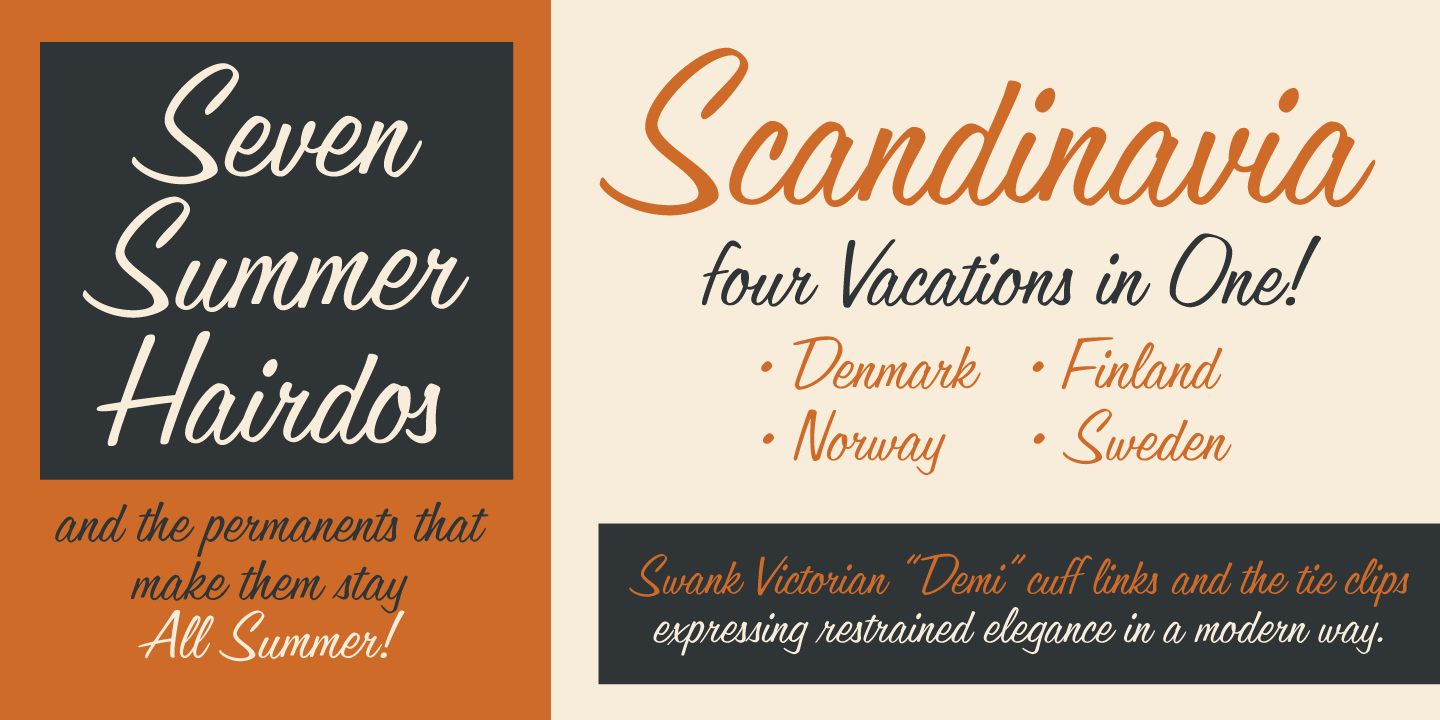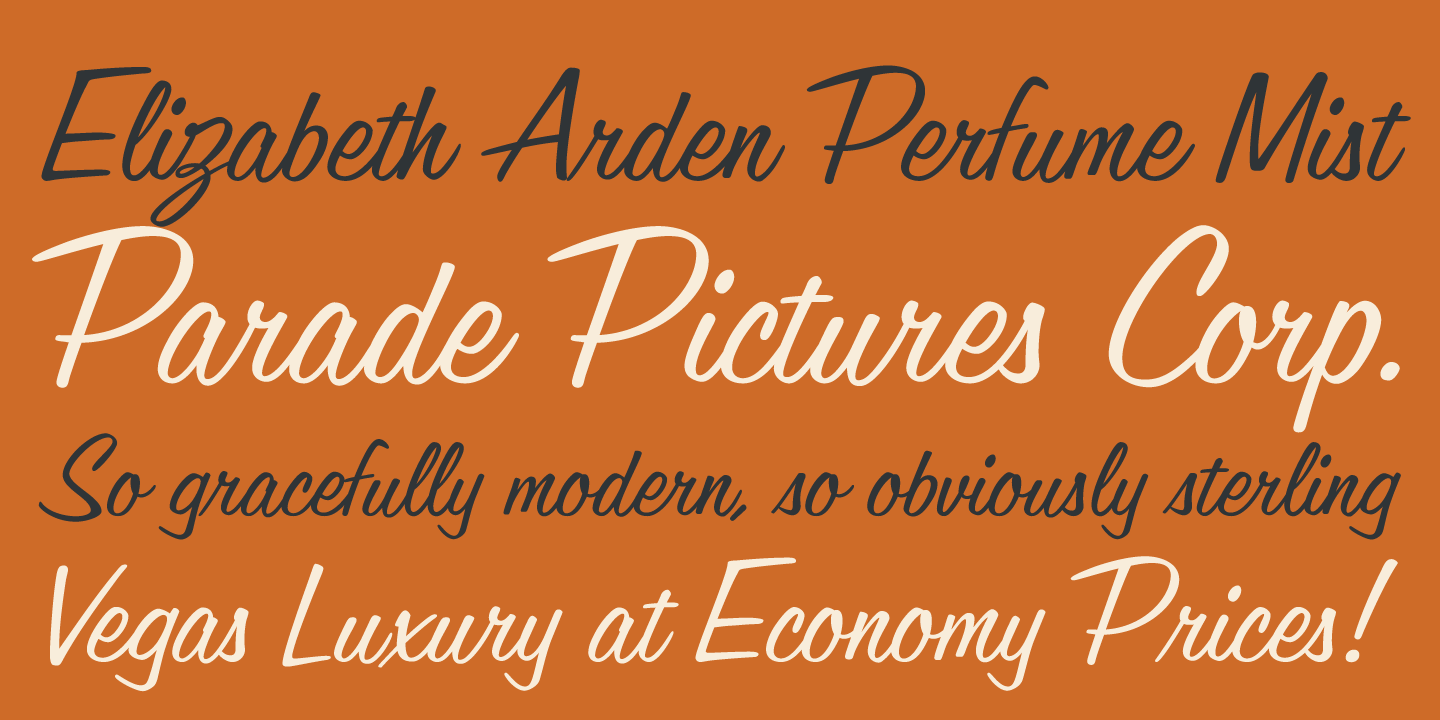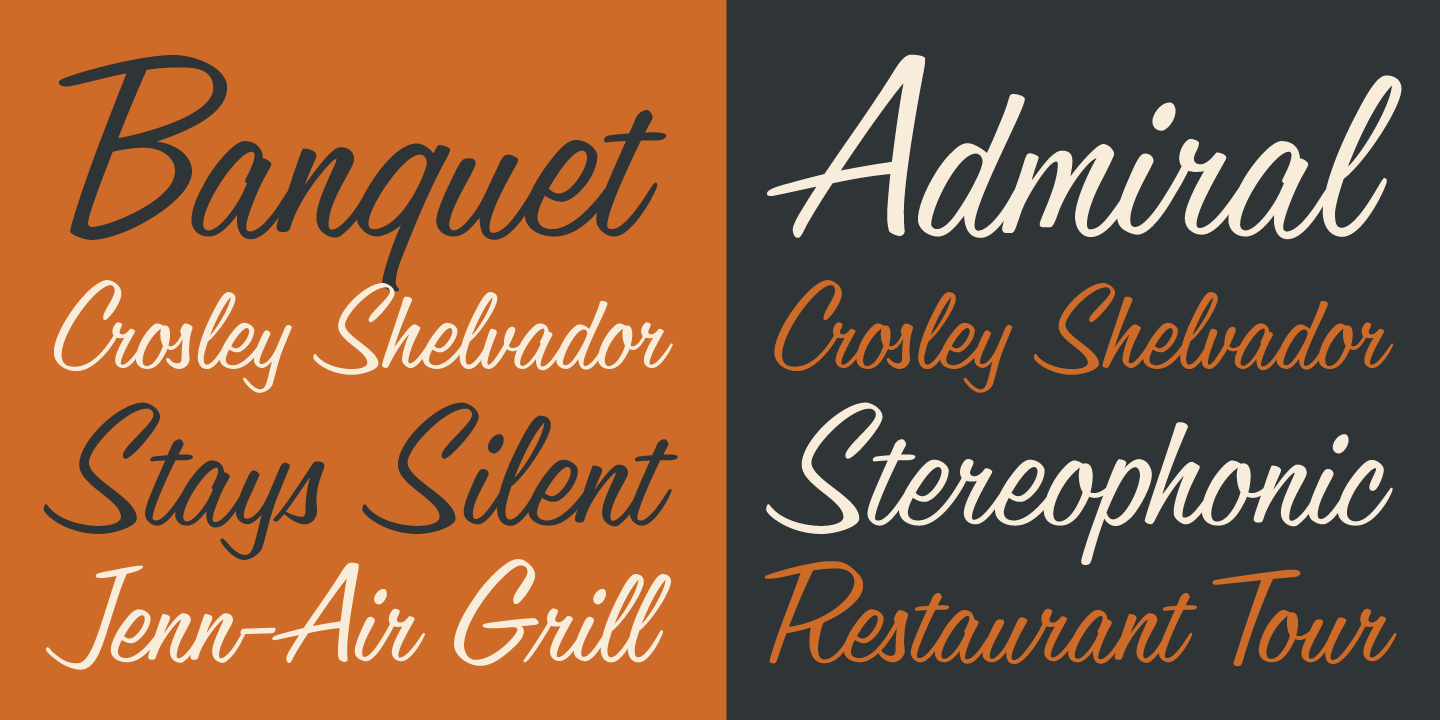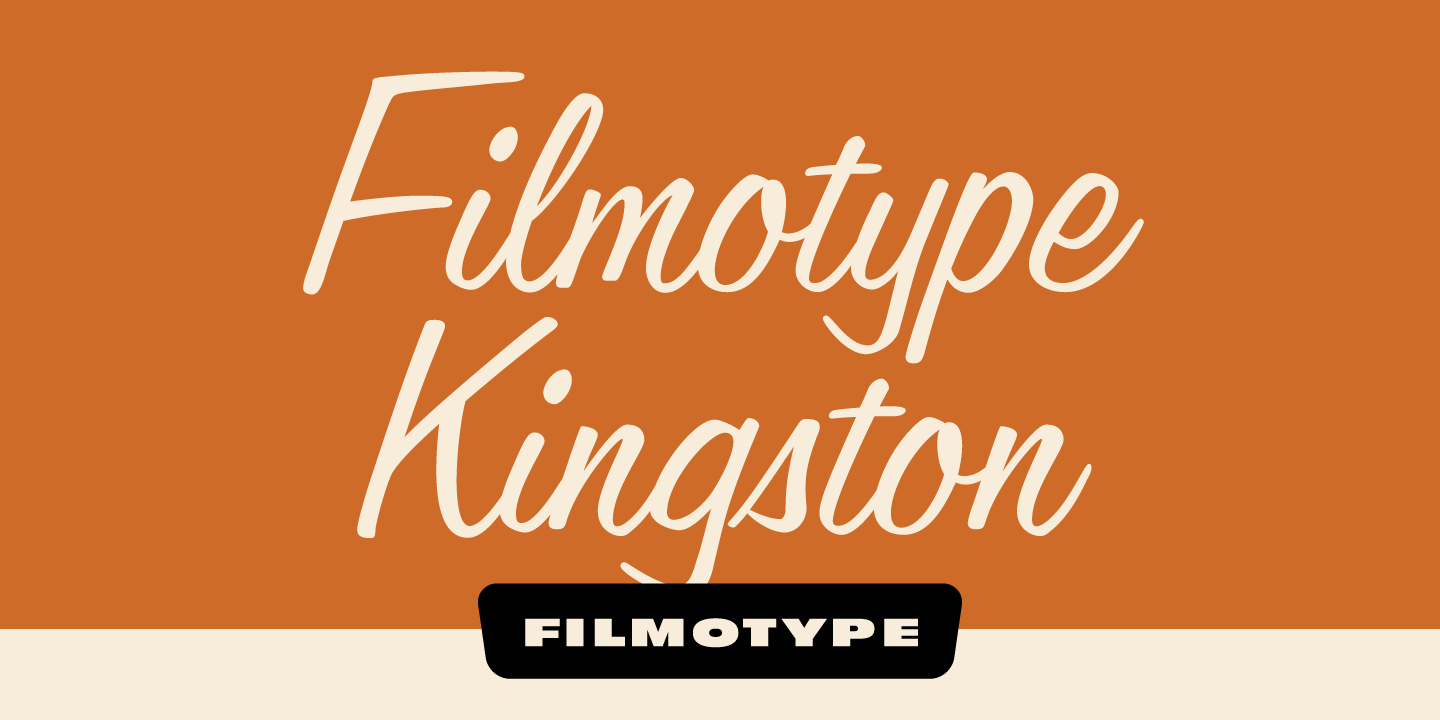
Filmotype Kingston
About Filmotype Kingston
Filmotype Kingston was released by Filmotype in the early to mid-1950s as part of its handlettered script styles and it gained wildly popular use with many Filmotype owners as the first true italic version of its first connecting script face Filmotype…